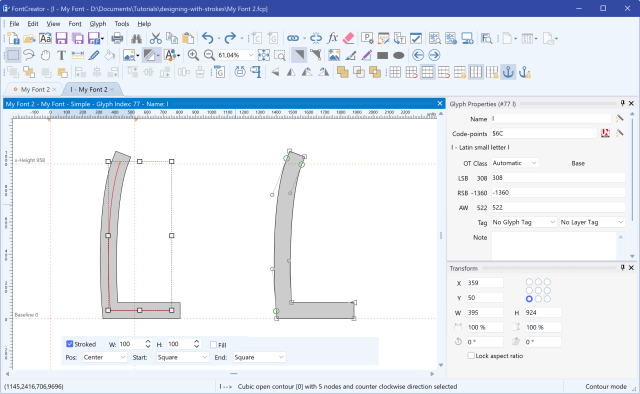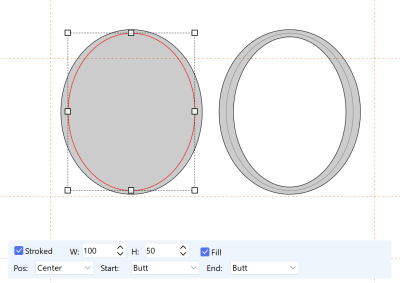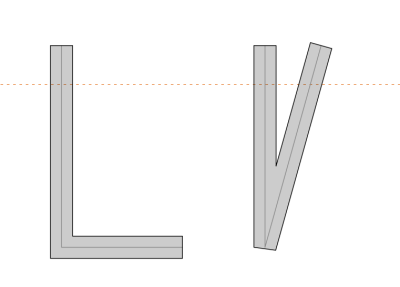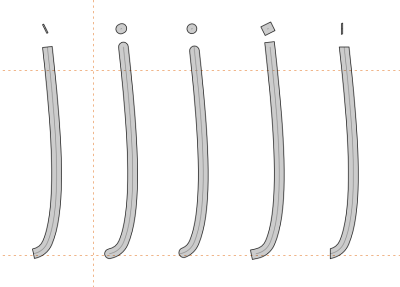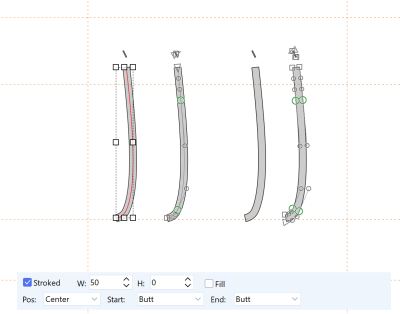
Monoline & Stroke Fonts: Design from a Skeleton
A monoline font — and many other letterforms — is easiest to think about as a skeleton — a thin centerline — with a pen of some width run along it. In this font editor, FontCreator's stroke feature lets you design exactly that way: draw a path, give it a stroke, and FontCreator builds the filled outline (the envelope) for you. The path stays a centerline you can keep editing — change the width, swap the cap, nudge a node — and the filled shape updates live. When you're done you either bake it to plain outlines or just export: FontCreator expands strokes to outlines automatically.
FontCreator Glyph Edit window showing a lowercase l centerline path beside its stroked filled letter, with the stroke bar.
a lowercase "l" drawn as a single centerline path on the left, and the same path stroked into a filled letter on the right, with the stroke bar showing width, height, pen position and caps.
This is great for a monoline font or geometric design, a calligraphic font, icon sets, and any glyph where adjusting one width beats redrawing two edges by hand.
Note: This is not the same as a single-line / engraving font. There, you deliberately keep paths open so a CNC tool follows the centerline (see Single-Line Fonts for Engraving and Cutting). Here, you stroke the centerline and export a normal filled font.
Stroke a path (the monoline font workflow)
1. Draw your skeleton — for an l, a single vertical path; for an e, the eye and the curve as one or two paths.
2. Select the path.
3. Turn the path into a stroke: right-click in the glyph editor and choose Stroke (or tick the Stroked box in the stroke bar that appears below the editor). The stroke bar then exposes the attributes:
- W: and H: — the pen width and height. Equal values give a uniform (round-pen) stroke; different values give a calligraphic broad-nib effect (see the tip below). - Pos: — where the pen sits relative to the path: Center, Left, or Right. Center is the usual choice; the edge positions are handy when the skeleton sits on a design boundary. - Start: and End: — how each open end is finished, set independently (next section). - Fill — keep this ticked to draw the solid envelope.
Corners are turned automatically: FontCreator uses a sharp (miter) outer corner and falls back to a clean bevel on very acute angles, so there's no separate join control to set.
FontCreator immediately shows the filled envelope while keeping the centerline editable. Drag a node or change the width and the filled shape follows.
FontCreator stroke bar for the selected path showing the Stroked, W, H, Fill, Pos, Start and End controls over the live filled envelope preview.
the stroke bar for the selected path — Stroked, W:, H:, Fill, Pos:, Start:, End: — with the live filled preview behind it.
Tip: For a calligraphic broad-nib pen, give W: and H: different values — a wide W with a small H mimics a flat nib. Equal W and H values give a uniform (round-pen) stroke.
Caps: how open ends are finished
Caps apply to the ends of open paths. FontCreator offers five:
• Butt — a flat end, flush with the last node.
• Round — a half-circle, extending past the end by half the width.
• Inset Round — a rounded end nestled inside the stroke body (a soft, slightly tucked terminal).
• Square — a flat end extended past the node by half the width.
• Calligraphic — an angled, pen-like end for calligraphic styles.
FontCreator showing one horizontal stroke repeated five times with Butt, Round, Square, Inset Round and Calligraphic cap ends labelled.
one horizontal stroke shown five times with Butt, Round, Square, Inset Round, and Calligraphic ends labelled.
Tip: Round and Square extend the stroke beyond the last node by half the width — keep that in mind when you place endpoints near the cap height or baseline.
Corners: how bends are turned
You don't set a join style by hand — FontCreator turns every corner automatically. It uses a sharp (miter) outer corner where the angle allows, and falls back to a clean bevel where a miter would spike out too far. In practice this means corners just look right: gentle bends stay crisp, and very acute angles are trimmed instead of growing a long spike.
FontCreator showing a stroked corner with a crisp outer bend and an acute angle automatically trimmed to a bevel.
a stroked corner showing the crisp outer corner FontCreator produces, with an acute angle trimmed to a bevel.
Pen position, open vs closed
• Pos: lets the same skeleton sit centered on the path or hug the left or right side — useful when your centerline is actually a design edge.
• Strokes work on open and closed paths. An open path becomes a stroke with two caps; a closed path becomes a band (think of an O drawn as one circular centerline stroked into a ring).
Monoline vs single-line (engraving) — what's the difference? A monoline font is stroked and exports as a normal filled font with closed outlines. A single-line (engraving) font deliberately keeps paths open so a CNC or laser tool follows the centerline directly — see Single-Line Fonts for Engraving and Cutting.